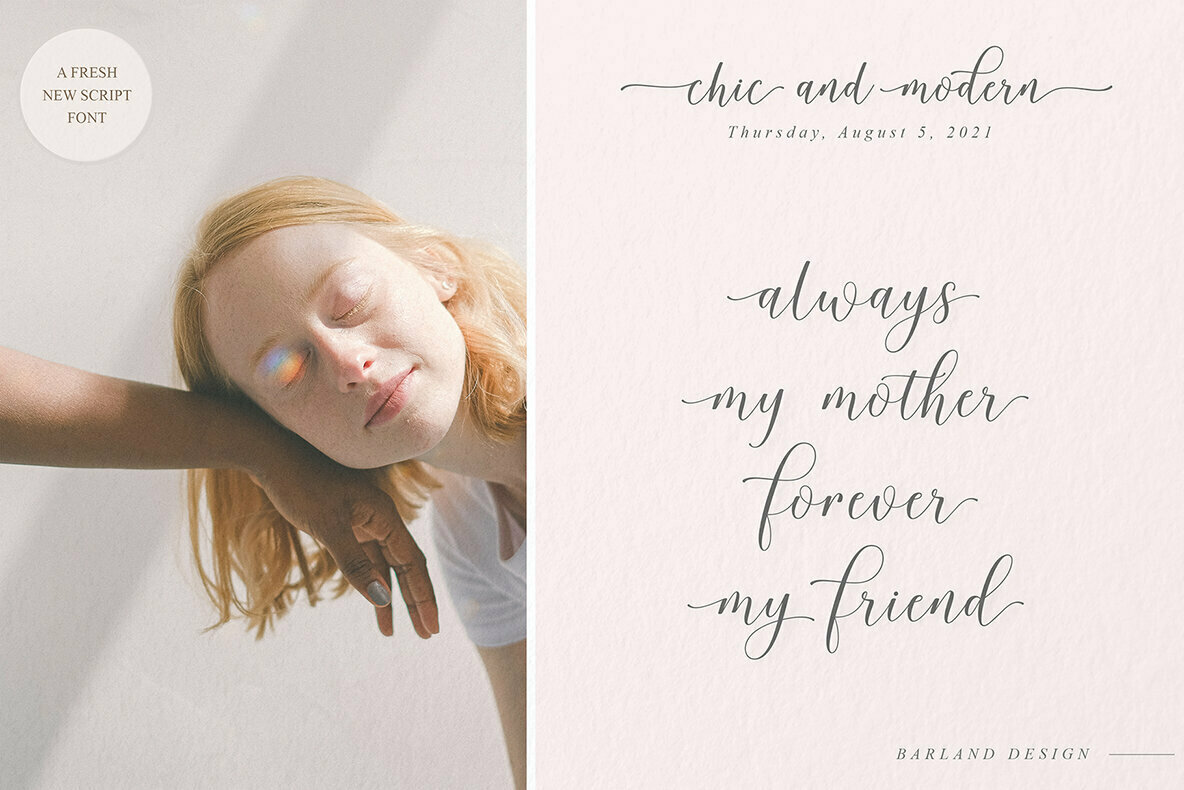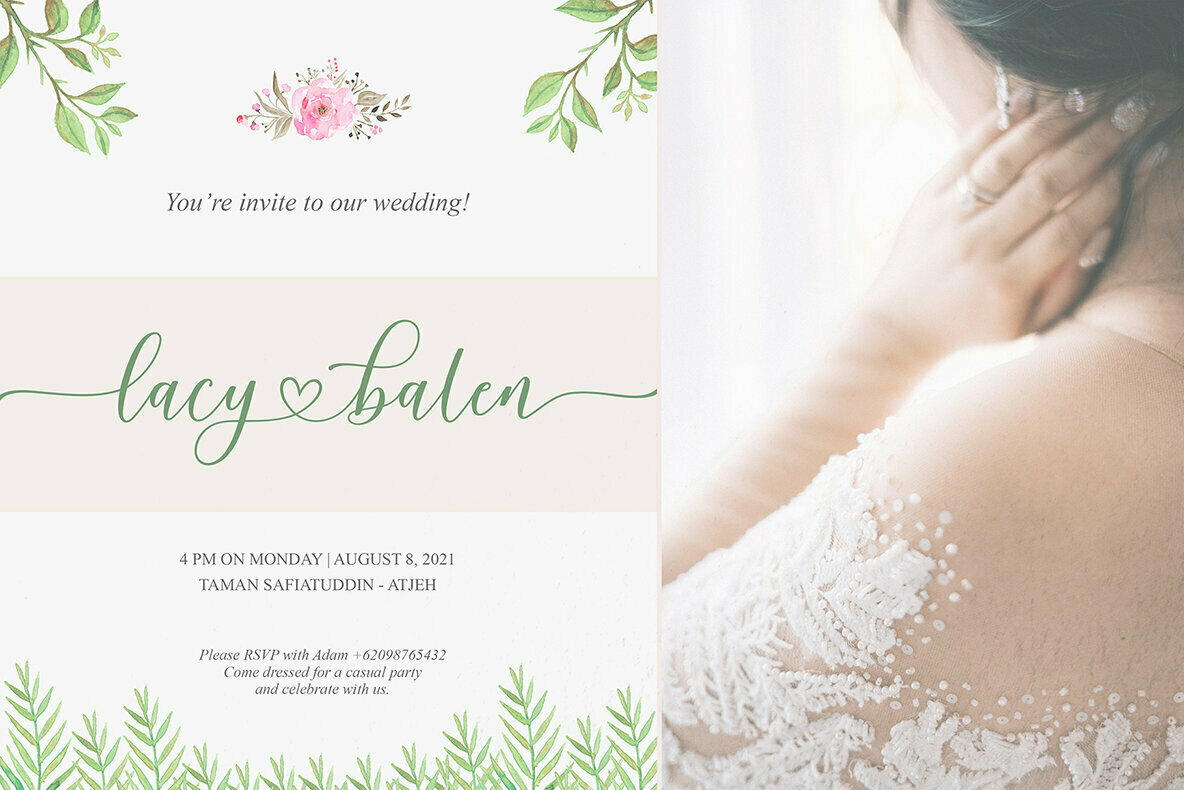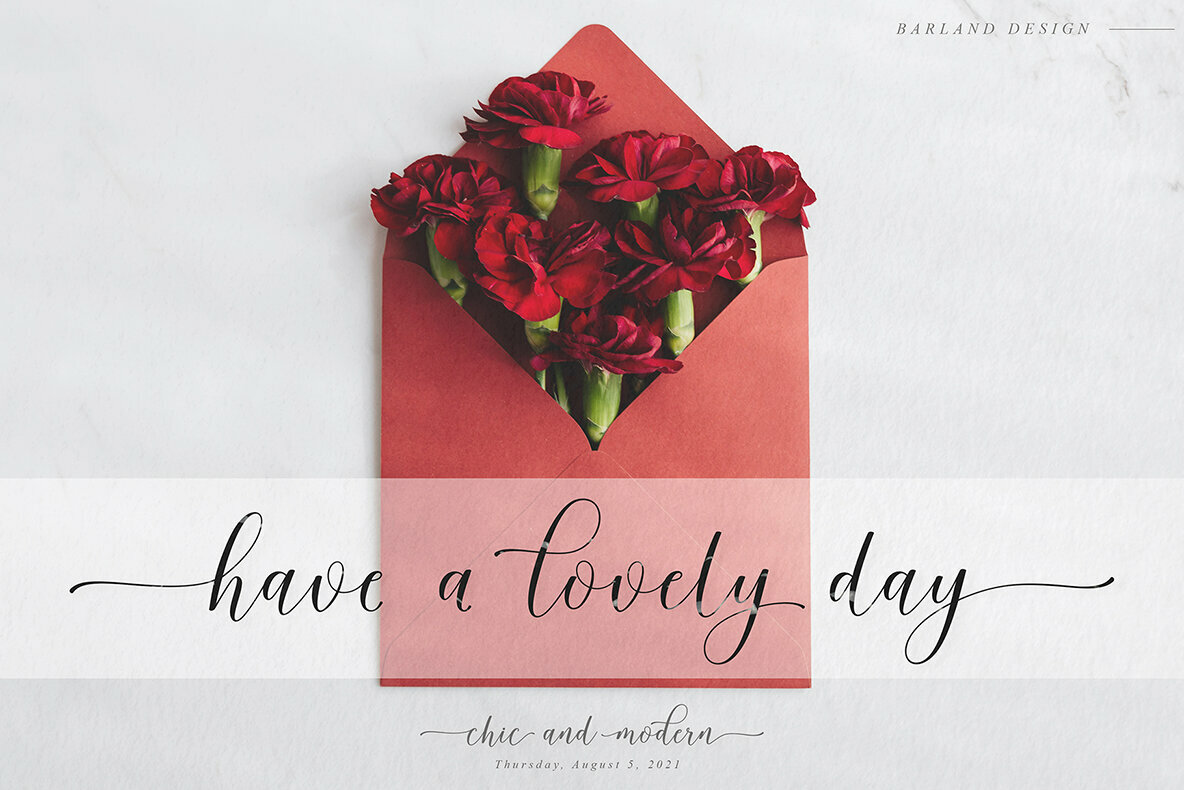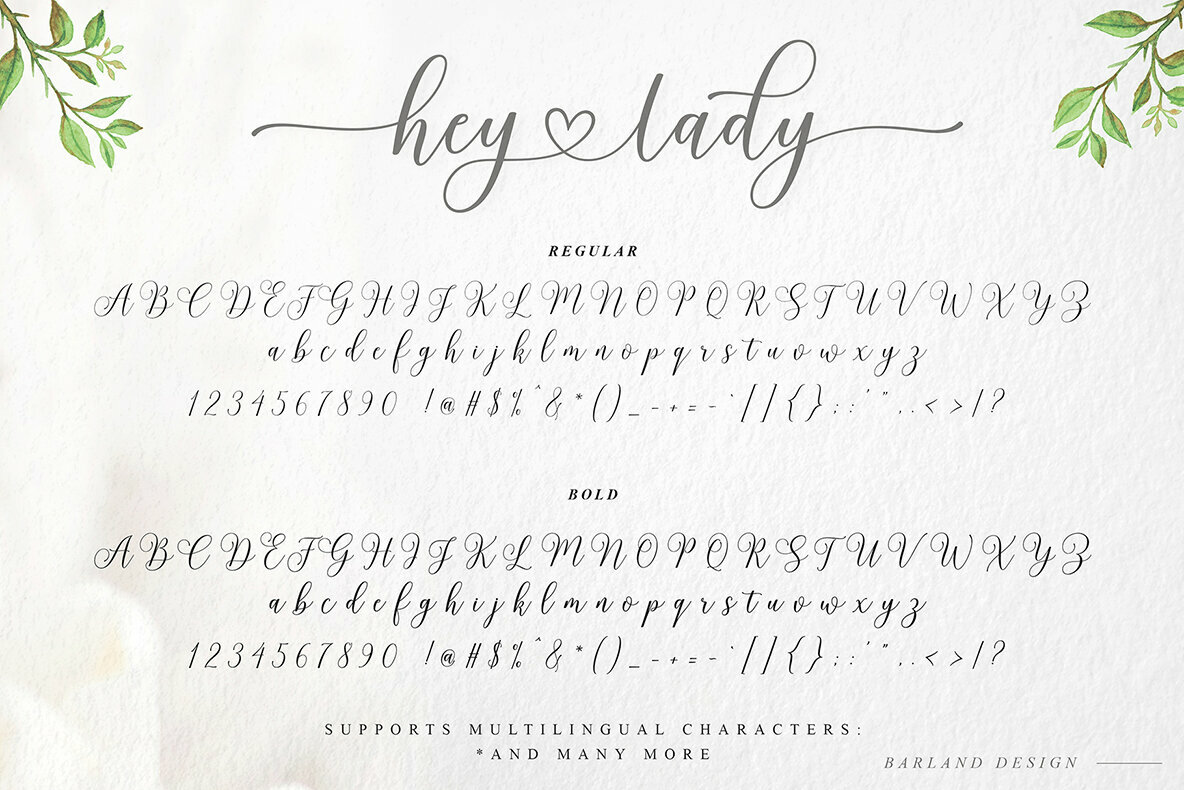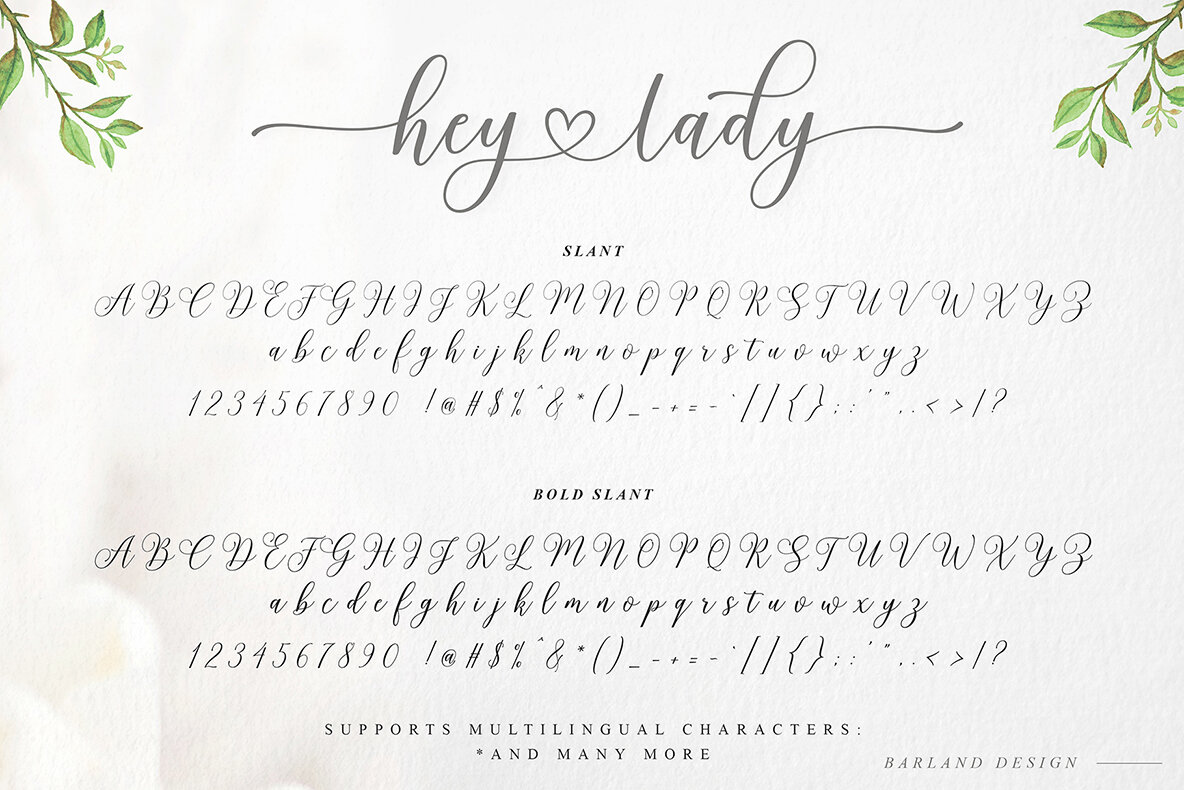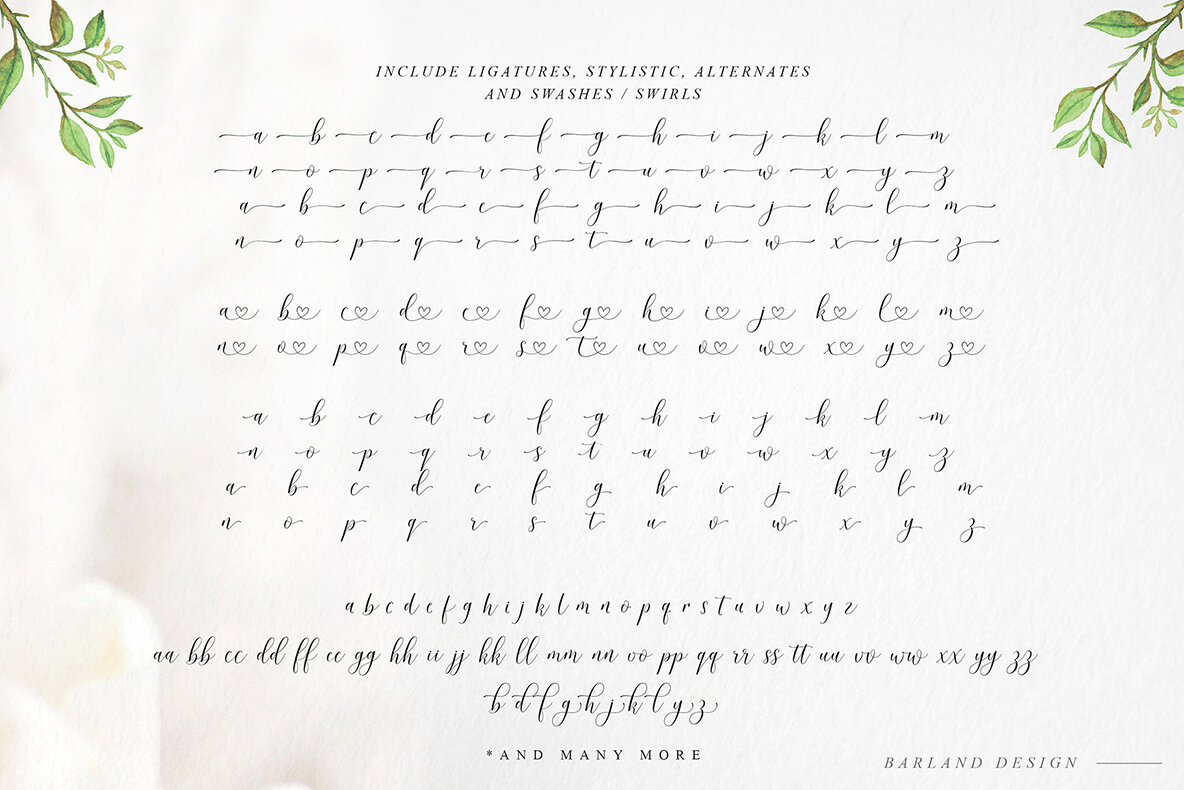
Hey Lady Script Font
Hey Lady Script offers a charming blend of classic elegance and modern simplicity. This font features subtle imperfections, providing an engaging visual rhythm akin to a musical dance of letters. Clean and straightforward, it is ideal for weddings, events, invitations, display purposes, logos, custom addresses, and more. Access alternate glyphs conveniently using Font Book for Mac or Character Map in Windows, even without advanced design software.Hey Lady Script: Classic Meets Modern